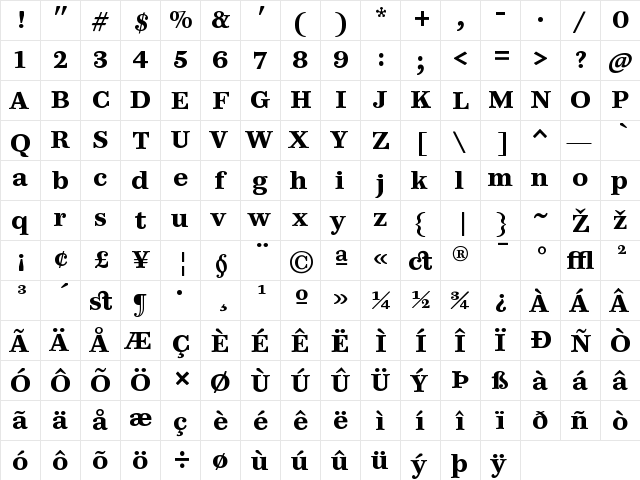
PB6TTP-BoldLF Regular
Design Context for PB6TTP-BoldLF Typeface
PB6TTP-BoldLF takes a measured approach to typography — its balanced proportions and neutral character make it a reliable workhorse for both digital and print work. Its bold stroke weight gives it real presence on the page.